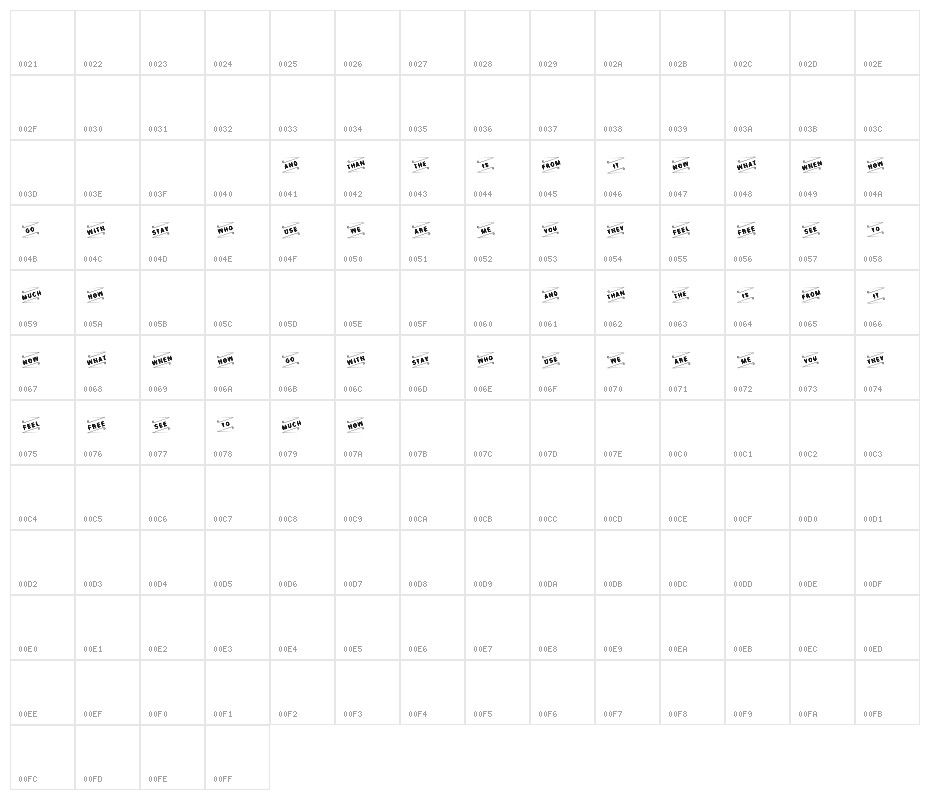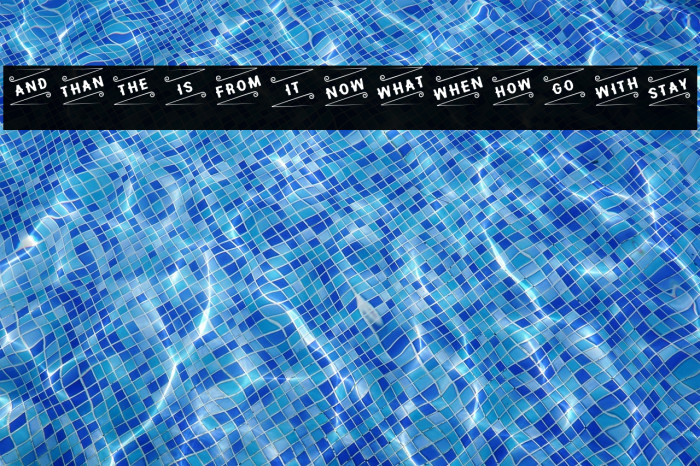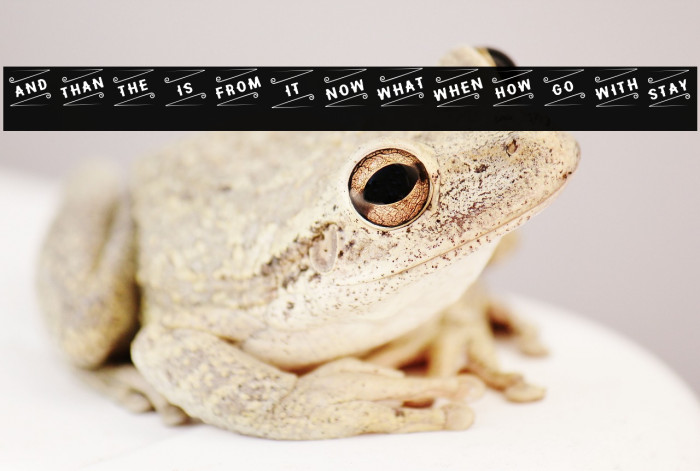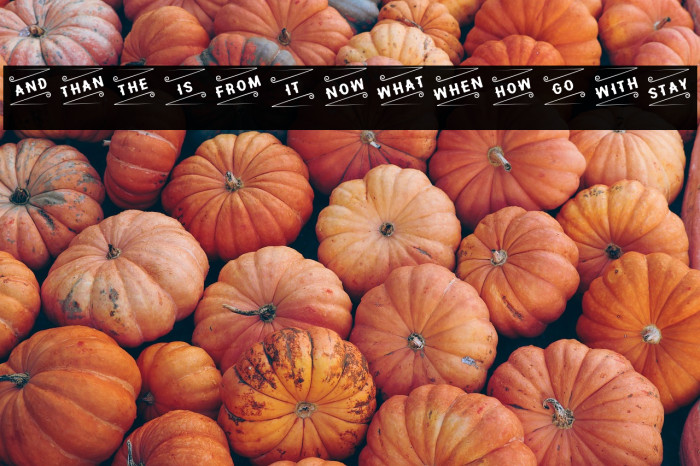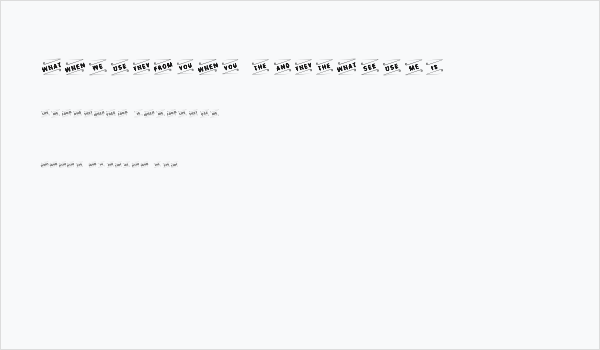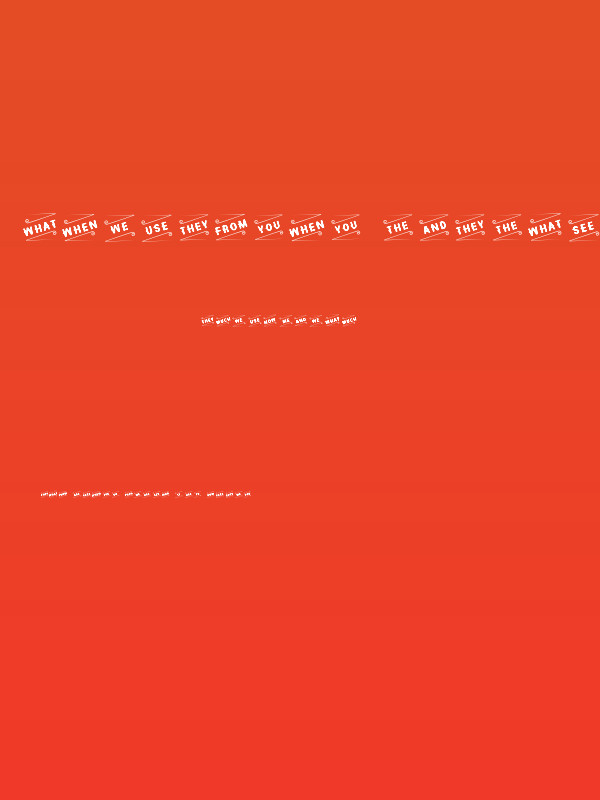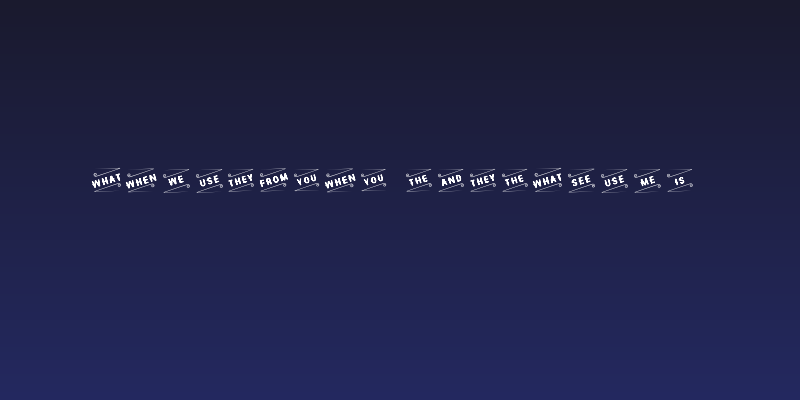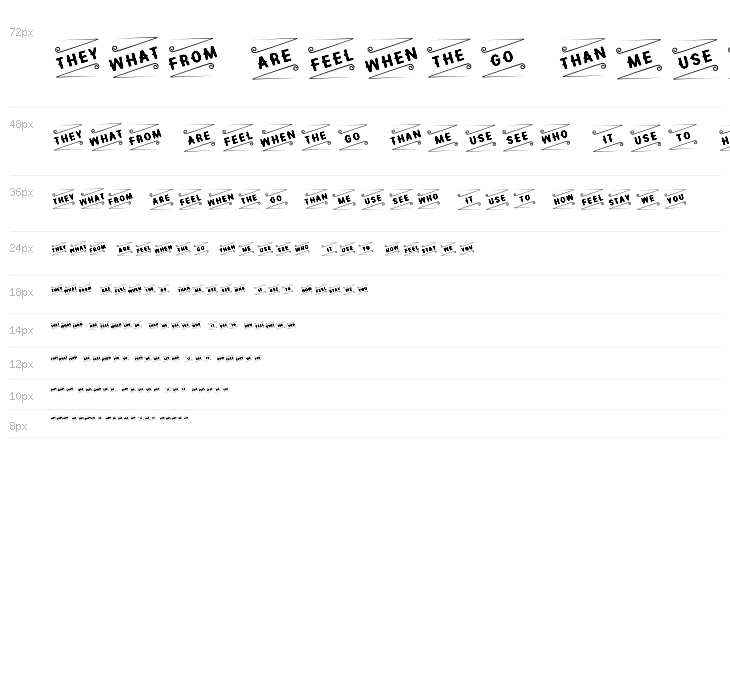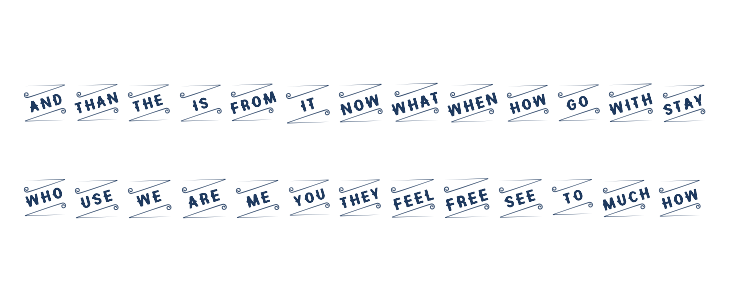
Hipotesis Catchword Font
Hipotesis Catchword Description
This font features a playful and dynamic style, characterized by bold, uppercase letters that are slightly slanted, giving a sense of motion and energy. Each letter is accompanied by a decorative underline that adds a unique flair, reminiscent of handwritten notes or casual signage. The strokes are thick and consistent, providing a strong visual impact, while the overall design maintains a sense of informality and approachability. This font is well-suited for creative projects that require a touch of personality and vibrancy.
| Overall Style | Playful, Energetic |
| Use Case | Headlines, Posters, Branding |
| Proposed Projects | Ideal for posters, social media graphics, branding materials, and any project needing a lively, informal touch. |